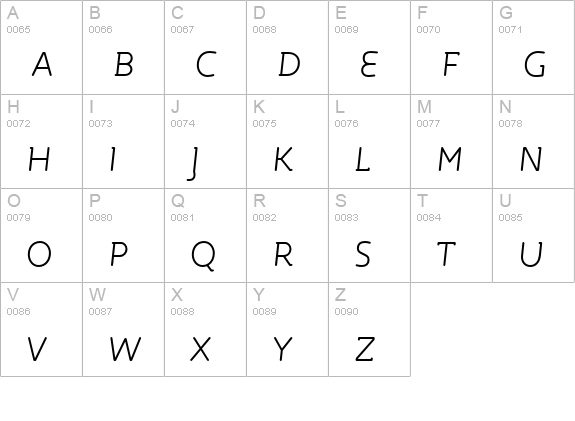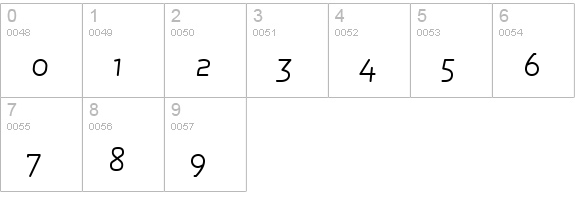
Roice-LightItalic font exudes elegance and sophistication with its delicate and refined letterforms. The slender and graceful strokes of this typeface add a touch of modernity to any design project. Its subtle slant creates a sense of movement and fluidity, making it perfect for conveying a sense of style and sophistication. What sets Roice-LightItalic font apart is that it is not only visually stunning but also freely available to download at FontsMarket.com. This means that you can easily incorporate this exquisite typeface into your projects without any additional cost. Whether you're working on a branding project, website design, or any other creative endeavor, Roice-LightItalic font will elevate your work to new heights.